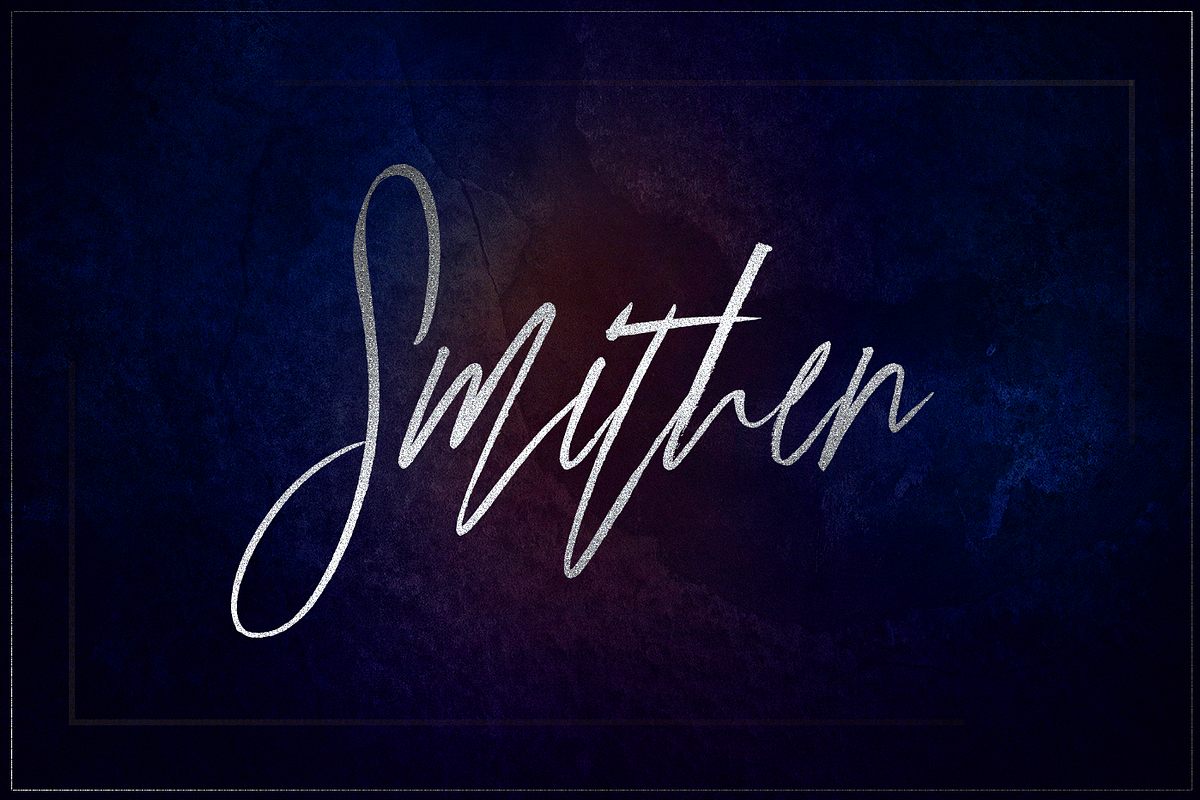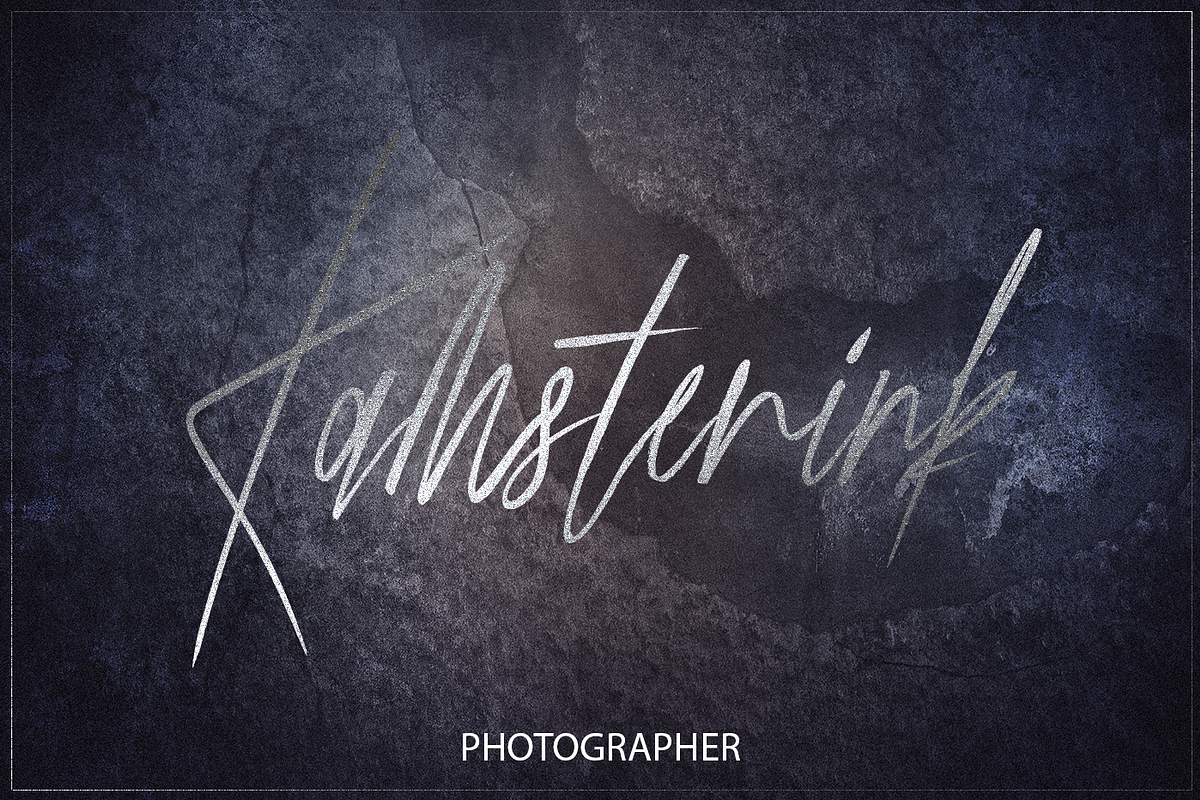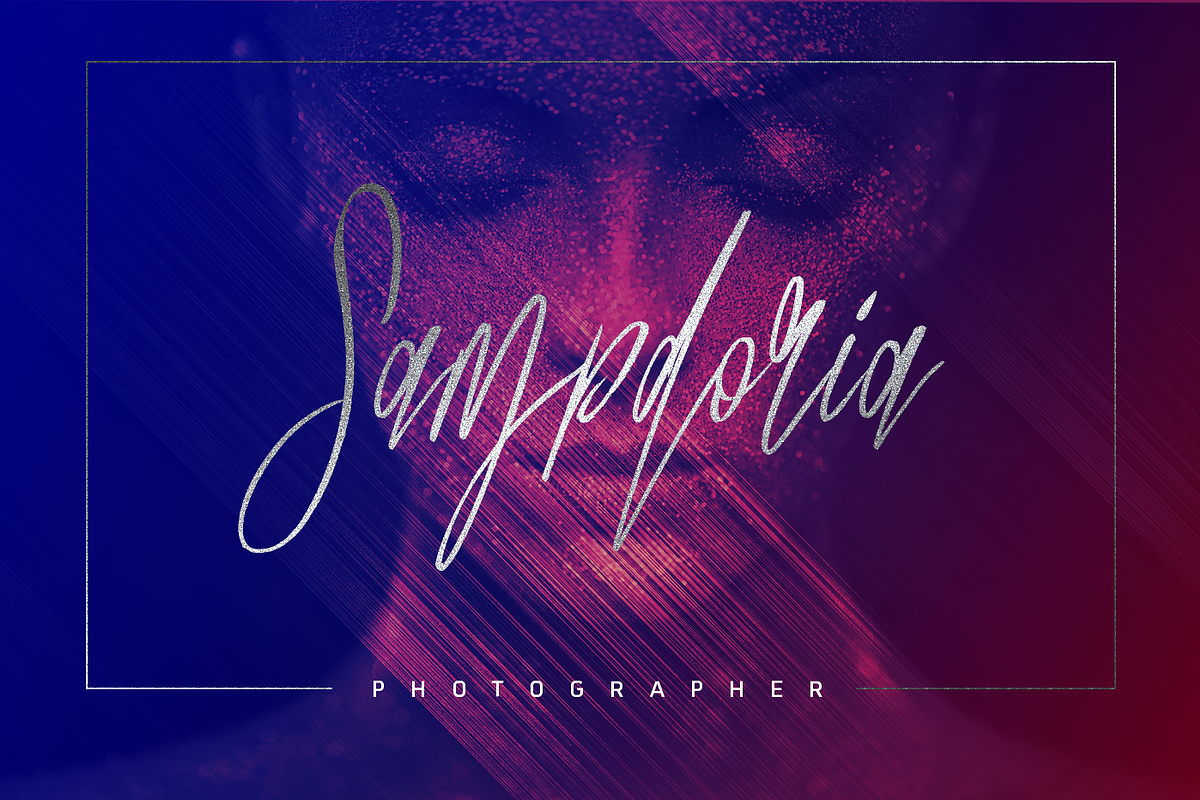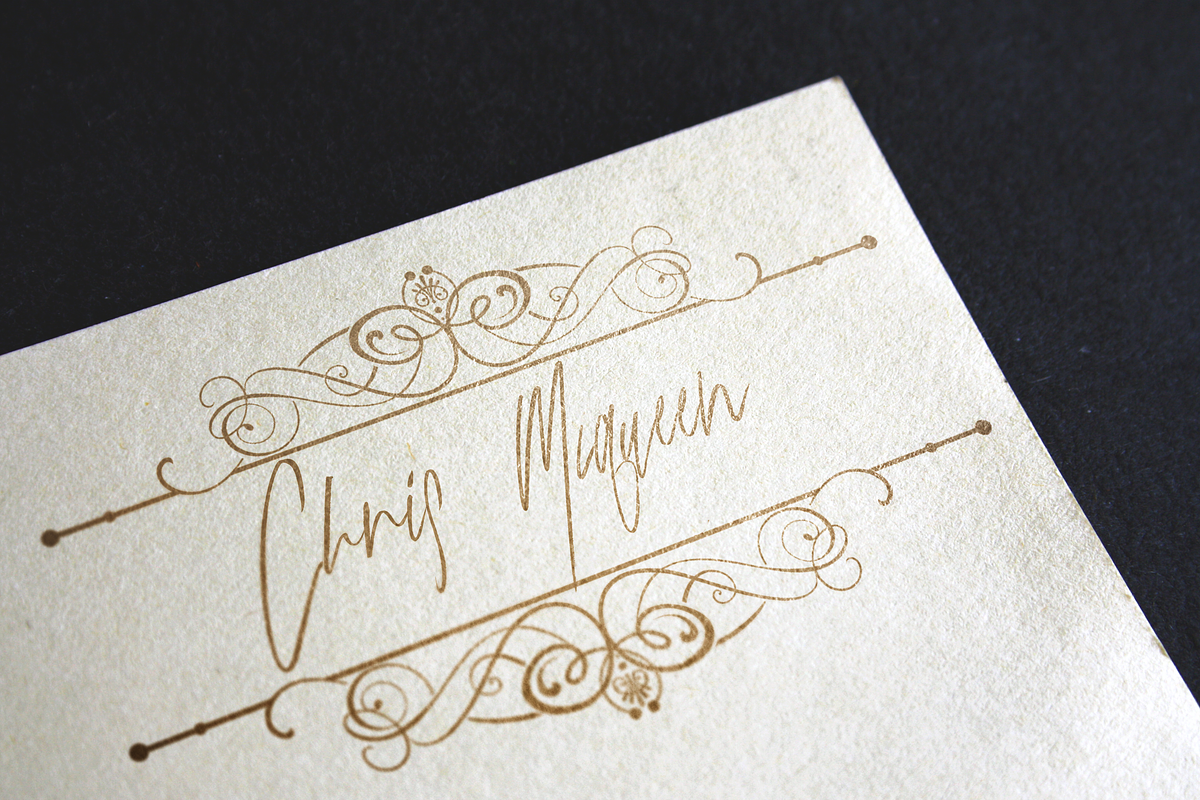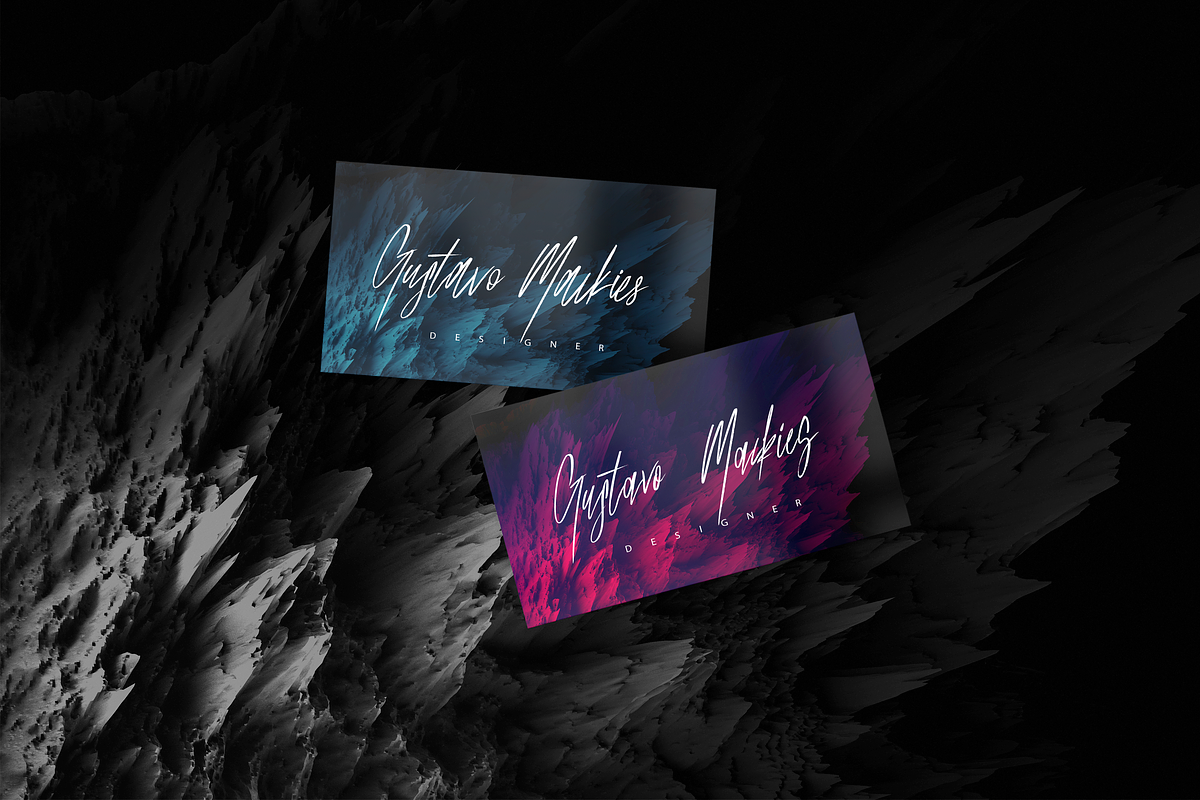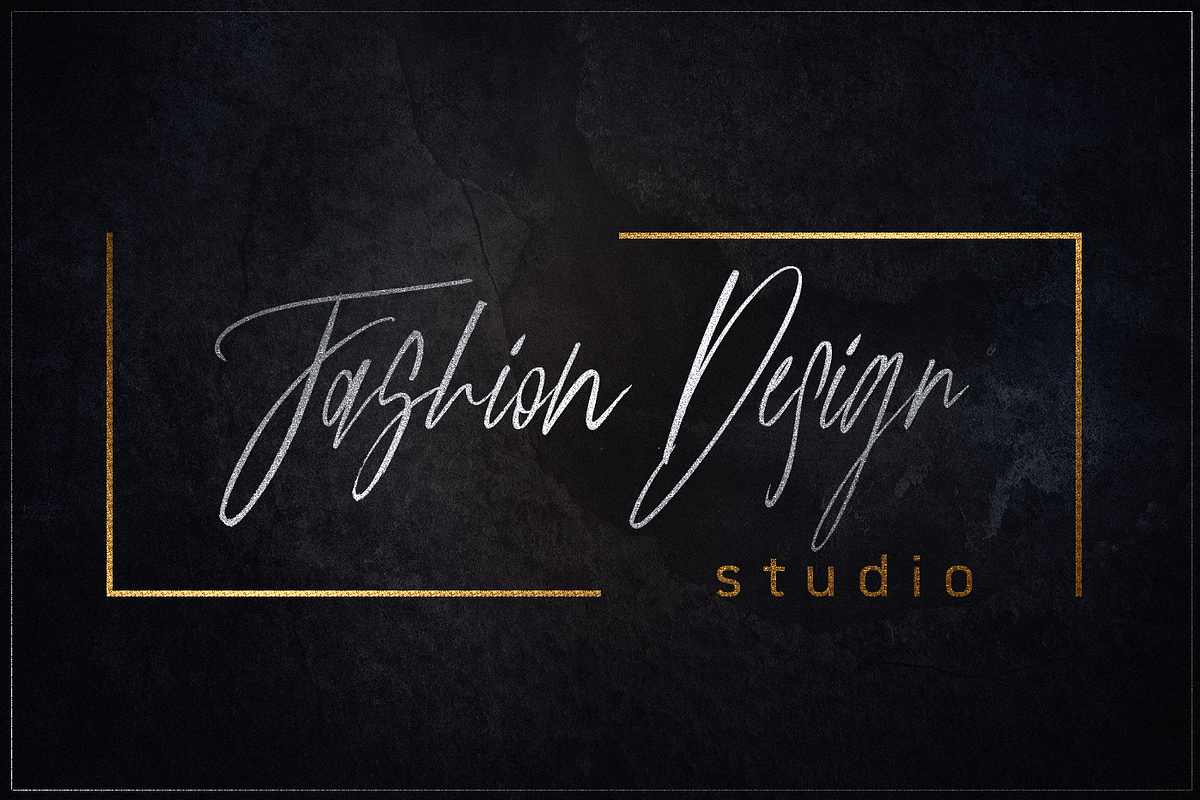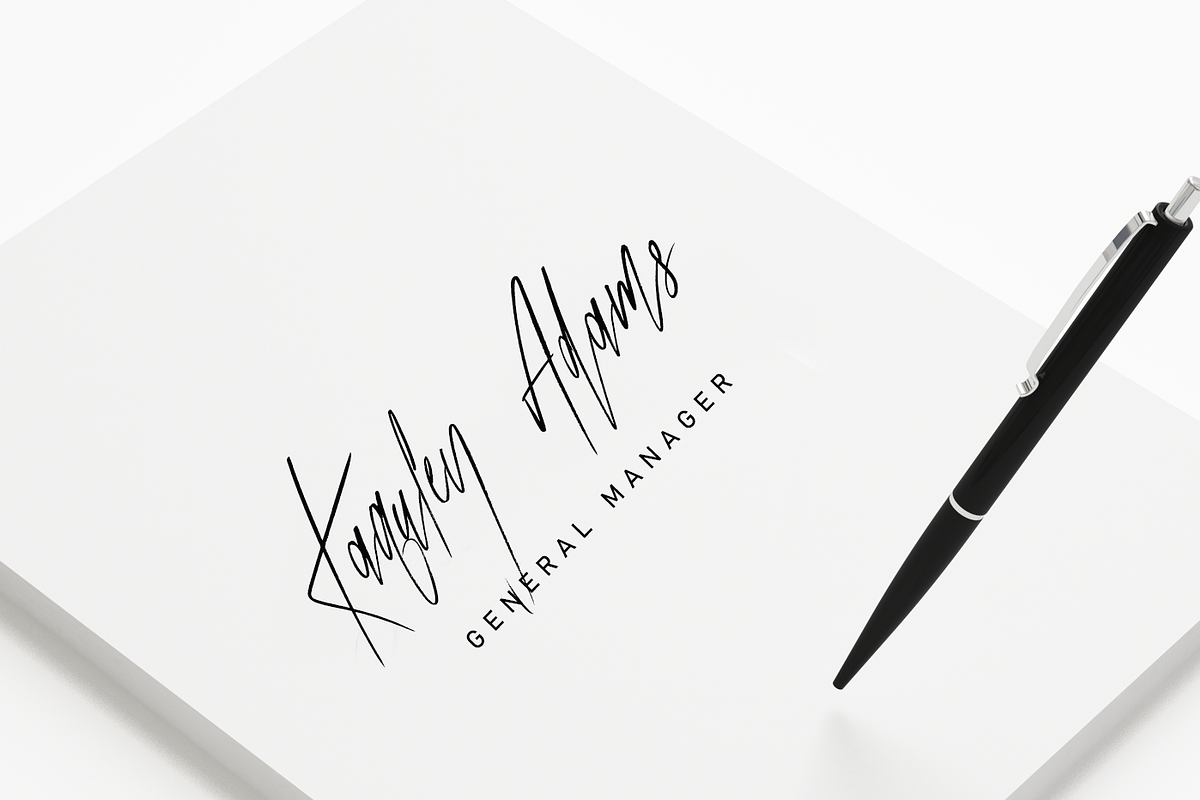
Gold Mastey Artictic Brush Font
Let me introduce you the font Gold Mastey Artistic Brush Font . It flows like a signature while you type it. It really shows the art of hand-work. It is very legible even though its nature looks like it has extreme lines. It is really unique in this regard. Awesome! Isn't it? :)
Characteristic company logosBlog pages Logo of brands Projects you need to utilize a premium font The projects that require a font including lots of alternates.Letters contain marker fading and italic state is made normal also naturalness draws attention
Extra Alternate Characters